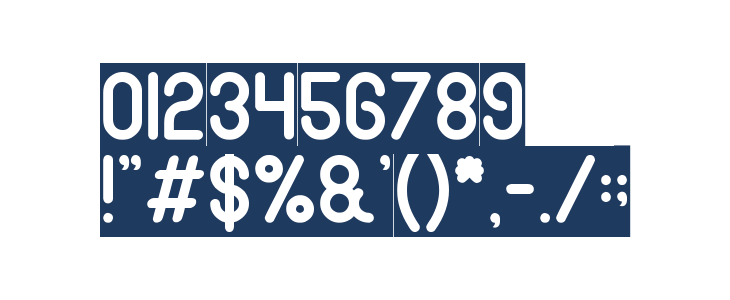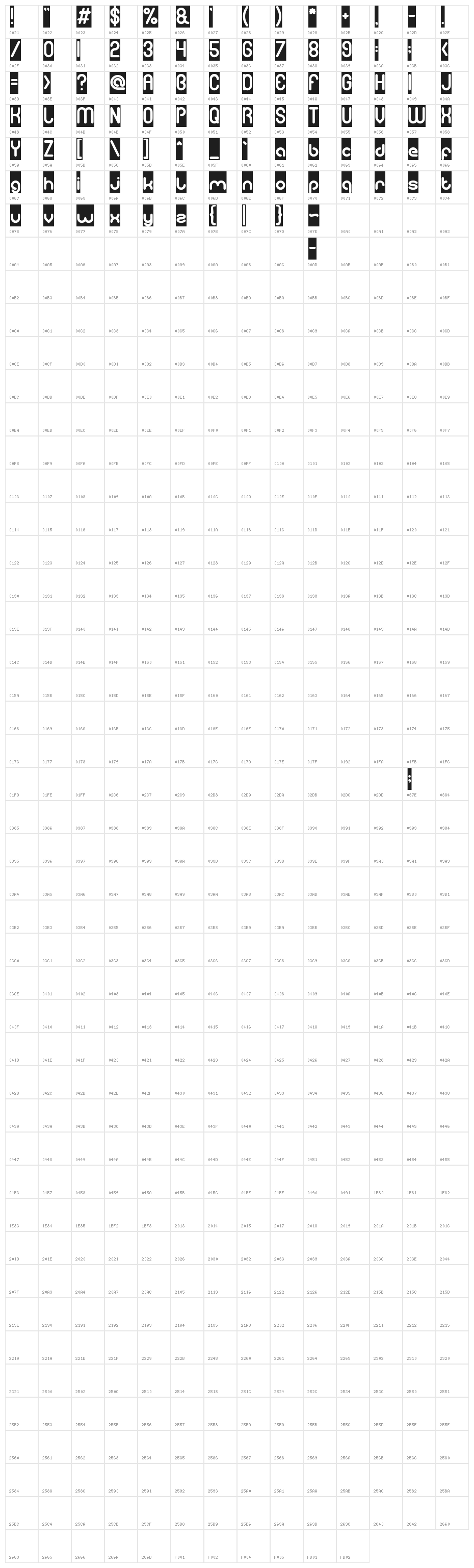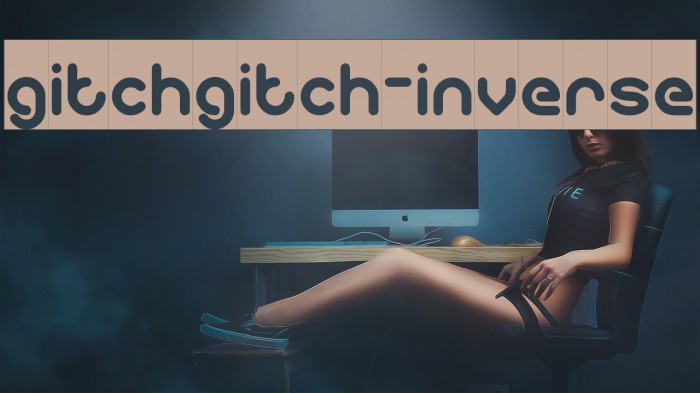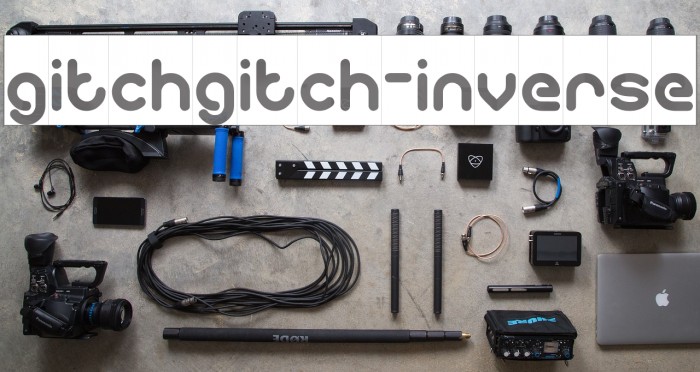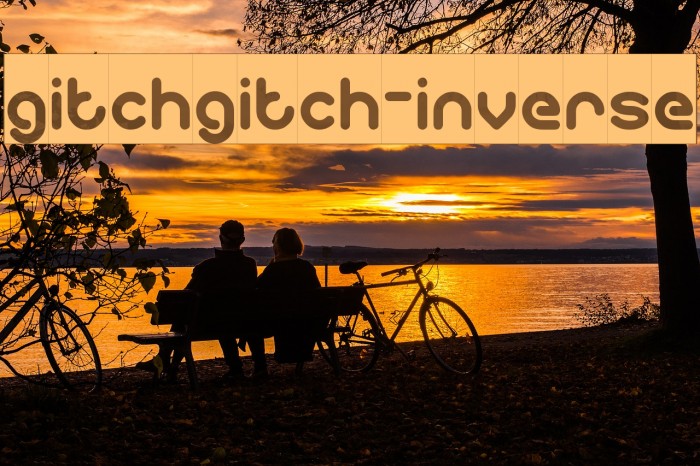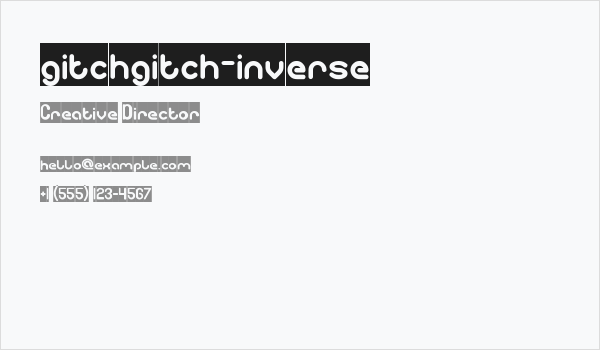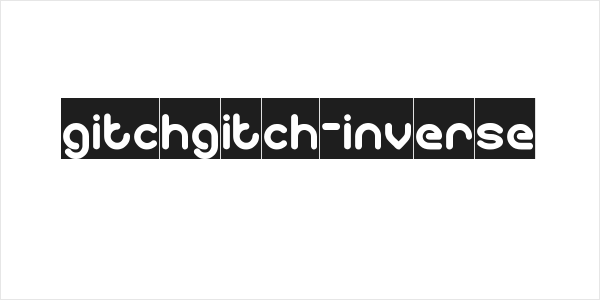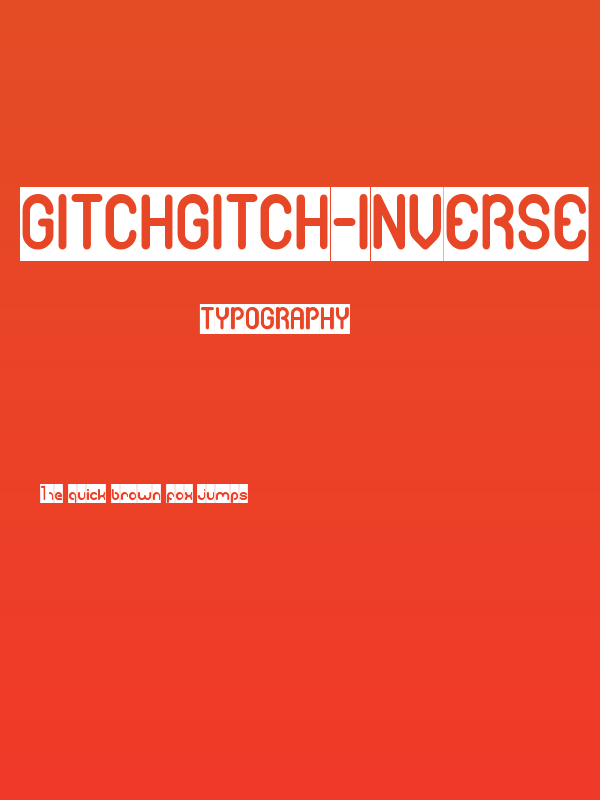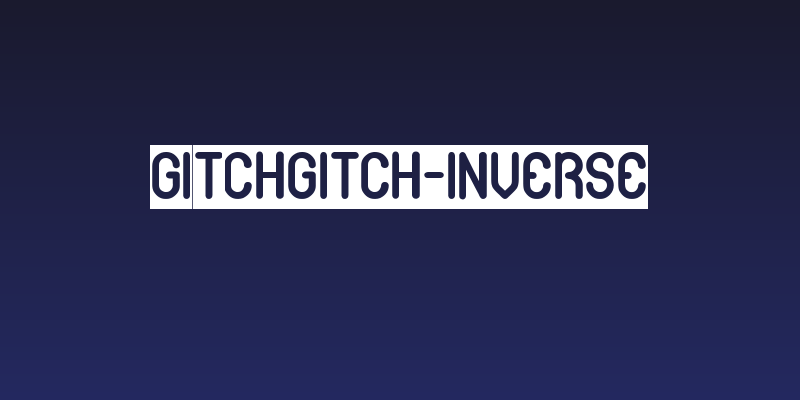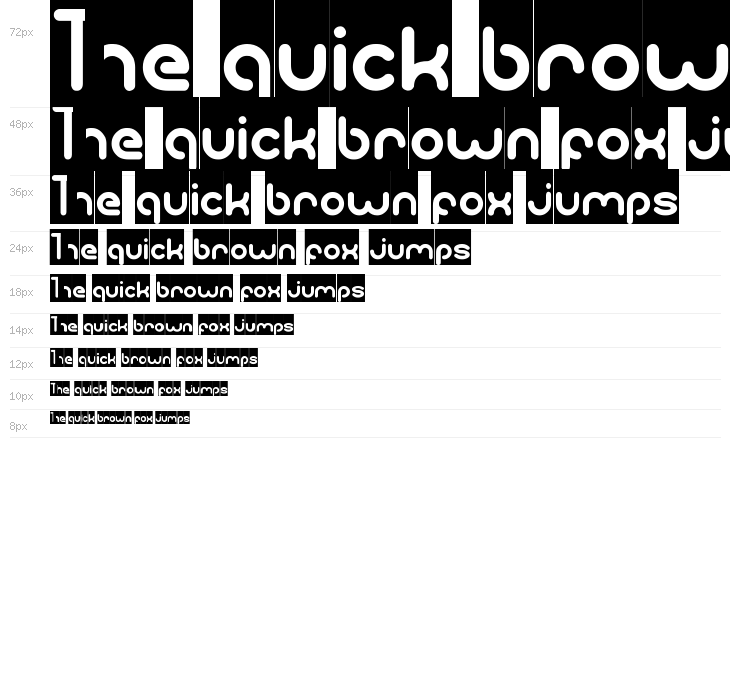
gitchgitch-inverse Font
gitchgitch-inverse Description
This font features a bold and playful design with rounded edges and a consistent stroke width. The characters are designed with a modern, geometric style that emphasizes simplicity and readability. The uppercase and lowercase letters maintain a uniform height, contributing to a cohesive appearance. Numbers and special characters are crafted with the same attention to detail, ensuring they blend seamlessly with the alphabet. The overall look is clean and contemporary, making it suitable for a variety of design applications.
GITCHGITCH-INVERSE UPPERCASE
GITCHGITCH-INVERSE LOWERCASE
GITCHGITCH-INVERSE OTHER CHARS
| Proposed Projects | Ideal for branding, posters, and digital media where a modern and playful aesthetic is desired. |